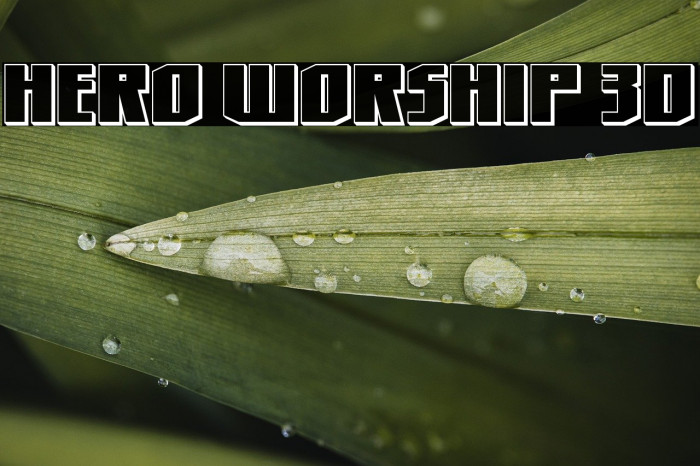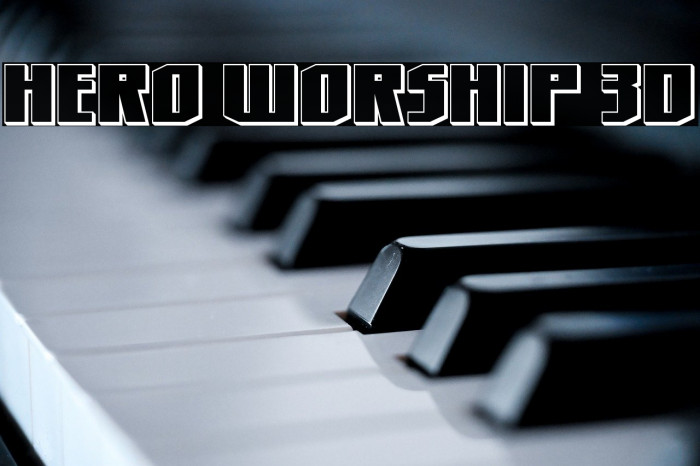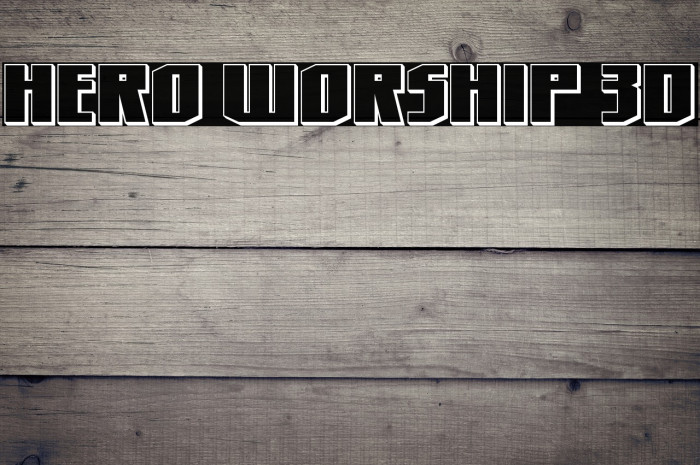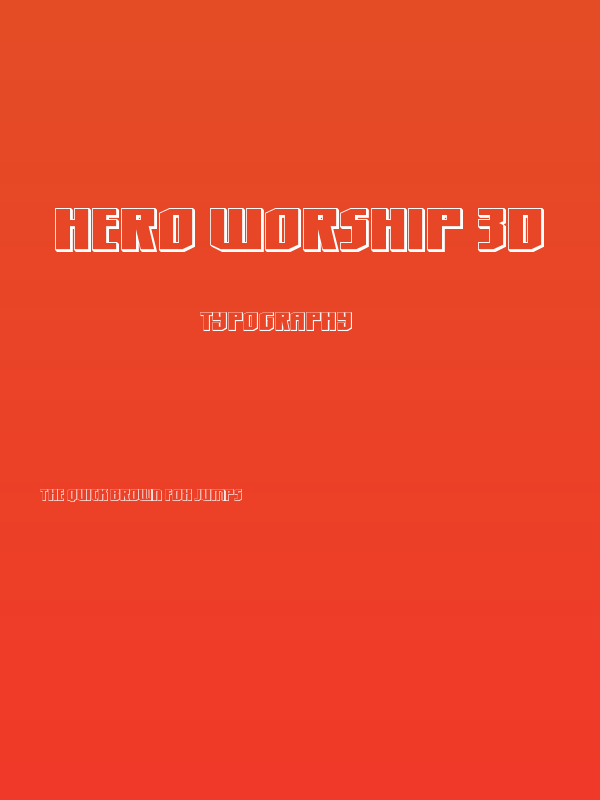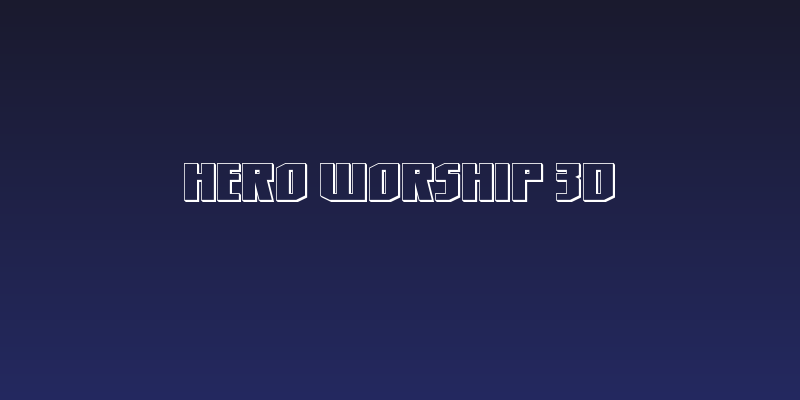
Hero Worship 3D Font
Hero Worship 3D Description
This font features a bold, three-dimensional style with a strong presence. The characters are blocky and geometric, with a distinct outline that enhances the 3D effect. Each letter and number is designed with sharp angles and straight lines, creating a futuristic and industrial look. The uppercase and lowercase letters maintain a consistent style, while the numerals and special characters complement the overall design. The font's structure is solid and impactful, making it ideal for attention-grabbing headlines or titles.
| Proposed Projects | Ideal for video game titles, movie posters, branding for tech companies, or any project requiring a futuristic and bold aesthetic. |